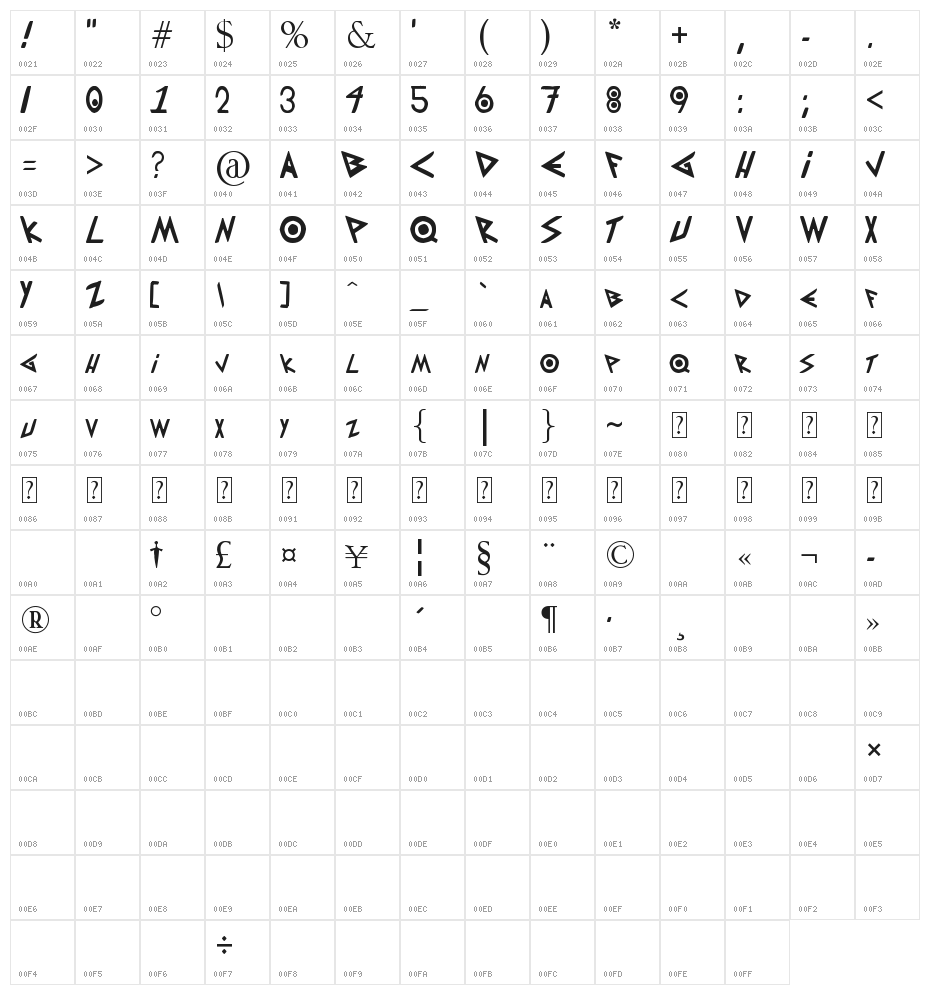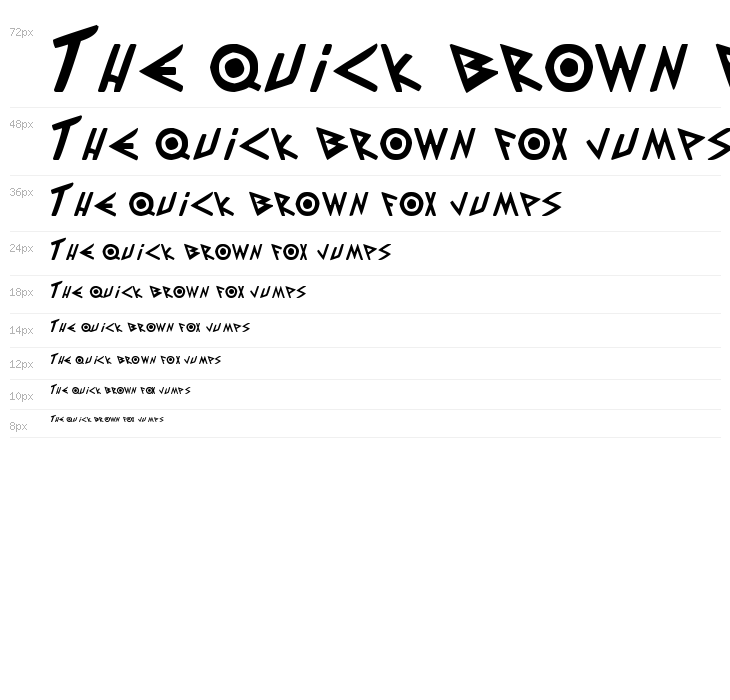
Patapon Font
| Gesamtstil | Playful, Energetic, Whimsical |
| Vorgeschlagene Projekte | Ideal for video game titles, children's books, posters, and creative branding projects. |